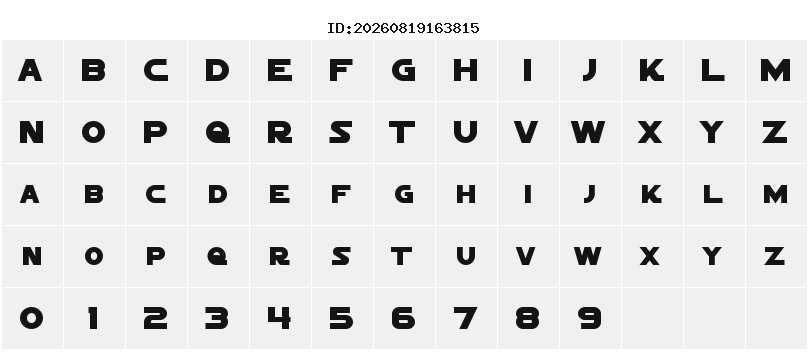
Sigma Five Marquee Preview
• Font Name: Sigma Five Marquee
• Full Font Name: Sigma Five Marquee Bold
• Version: Version 1.10 April 15, 2015
• Designer: Neale Davidson
• Manufacturer: Pixel Sagas
About Sigma Five Marquee.otf
Sigma Five Marquee.otf is a modern, elegant sans-serif font designed for ultimate readability and visual harmony. Perfect for branding, headlines, web design, and print materials.